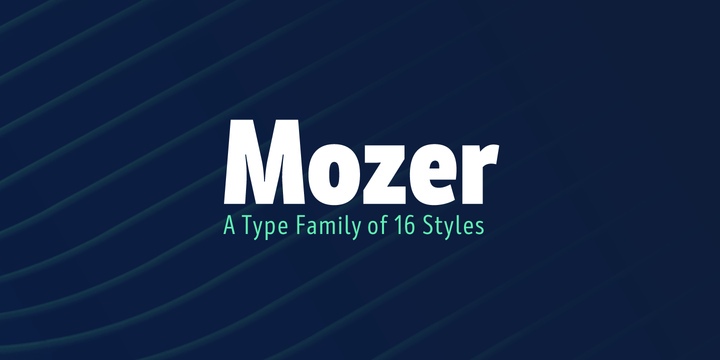
Mozer Font
Mozer Font is perfect for cutting-edge technology branding, futuristic product packaging, sci-fi movie posters, gaming industry materials, innovative startup identity, and modern digital interfaces. Its dynamic character makes it ideal for robotics companies, artificial intelligence platforms, virtual reality experiences, cryptocurrency brands, space exploration organizations, and any project requiring technological sophistication with forward-thinking innovation and digital-age aesthetics.
This font is exciting because it embodies the precision and innovation of advanced technology while maintaining exceptional readability across all digital platforms and emerging media formats. The meticulously engineered letterforms reflect the intersection of human creativity and technological advancement, creating powerful visual communications that resonate with audiences embracing digital transformation and futuristic lifestyle choices in our rapidly evolving world.
The Mozer Font family typically includes Light, Regular, Medium, and Bold weights with technical alternates, digital-inspired ligatures, and geometric elements that enhance its technological personality. This comprehensive collection enables designers to create sophisticated brand systems that maintain consistent innovation while providing flexibility for various tech applications requiring cutting-edge visual communication and modern market positioning.
Whether you're developing brand identity for emerging tech companies, creating user interfaces for advanced software platforms, or designing promotional materials for innovation conferences, Mozer Font Free Download delivers the technological precision and futuristic appeal that connects with digitally-savvy audiences. Its sleek presence ensures professional impact across websites, mobile applications, and digital marketing campaigns while maintaining the contemporary edge that communicates technological leadership, innovation excellence, and forward-thinking vision in today's competitive digital marketplace.